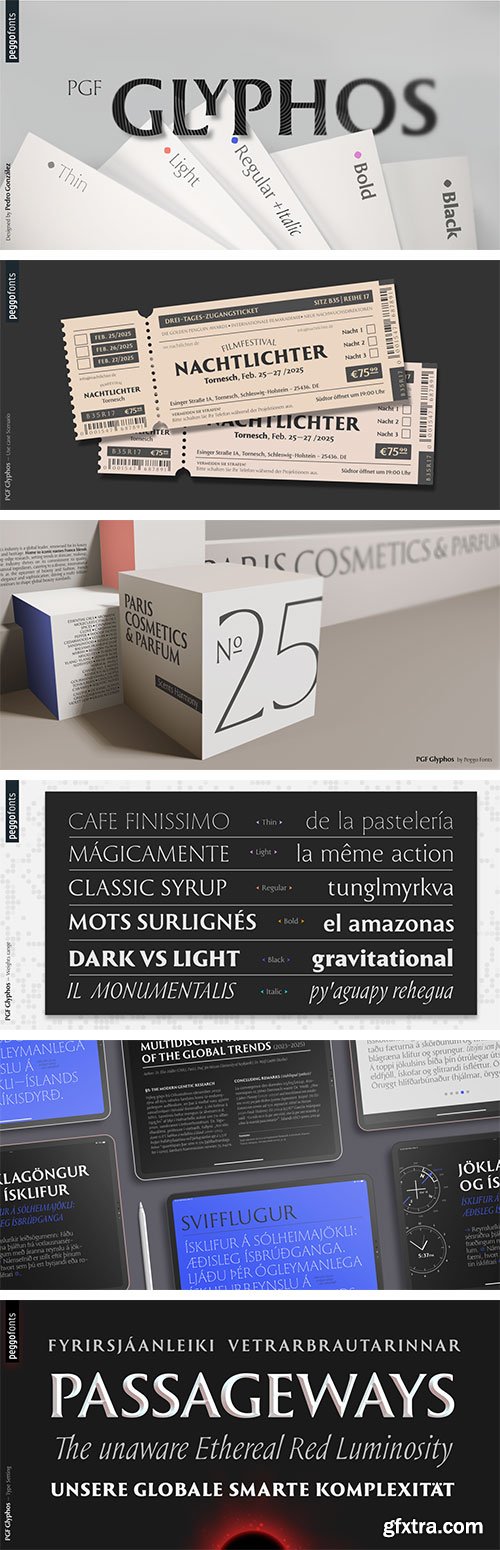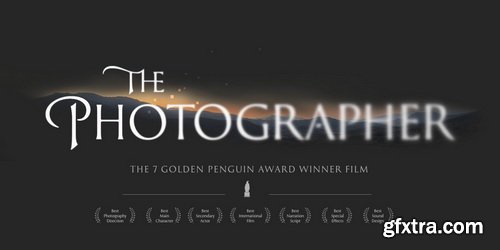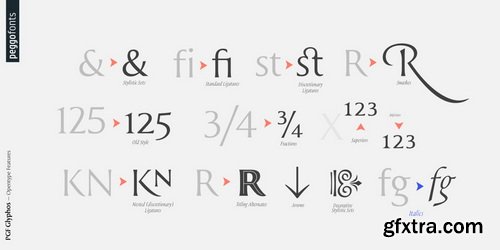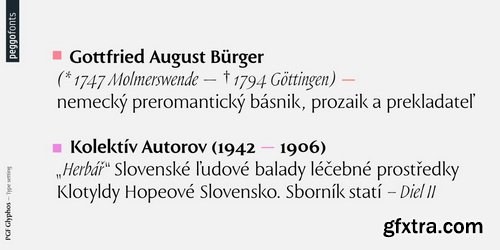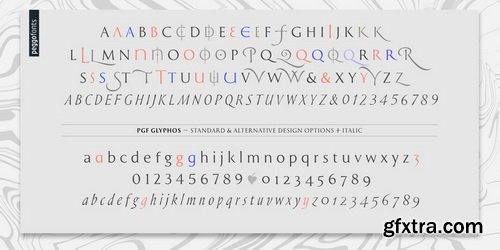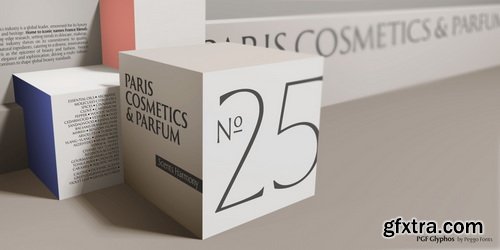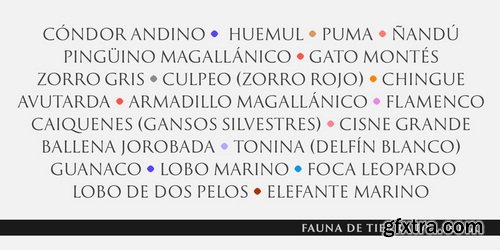
PGF Glyphos Is a flared serif Roman typeface from the branch of Glyphic families, that balances a clean, bold aesthetic, assertive character with architectural precision. Evolved from the 2011 release project "Legan", it now spans five distinct typographic weights plus an Italic variant, each offering sharp contrast for enhanced versatility in applications like book covers, film and video game titles, user interface design, branding, pro- duct design, and more. Design versatility drives this iteration, featuring extensive OpenType functionality including standard and discretionary ligatures (lineal, overlapped, and nested variants), alternate glyphs, and contextual alternates, multiple ways to display numbers (traditional lining, oldstyle, fractions, superiors and inferiors). The result is a compact yet expressive font family that balances playfulness, modernity, and timeless elegance.